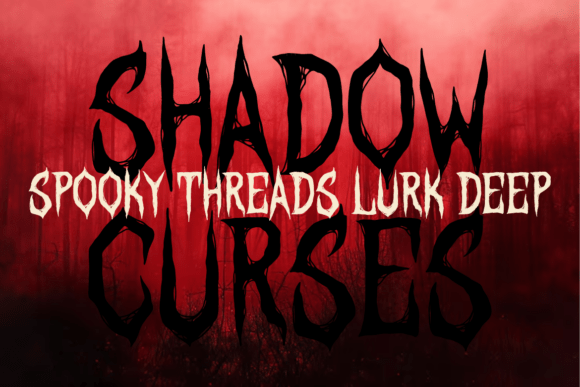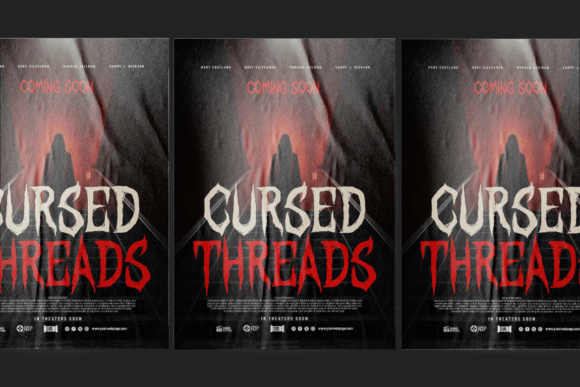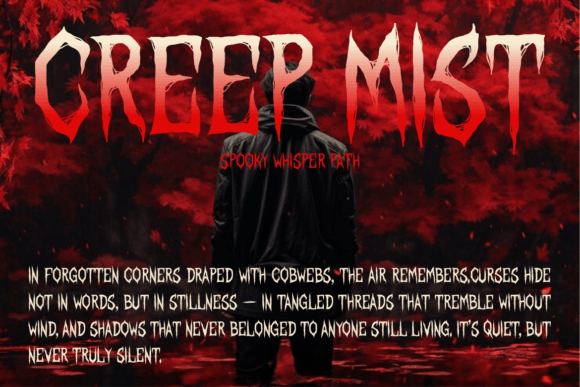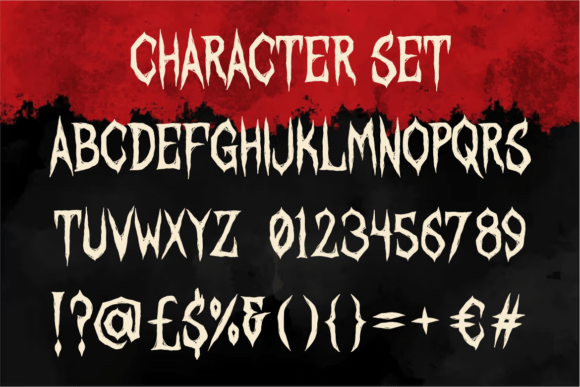
Unleash the Terror: Discover the Darkest Curse Font
Are you a designer or craft looking to add a touch of horror to your projects? Look no further than the Darkest Curse Font, a bone-chilling horror display font that captures the raw essence of fear. With its jagged edges, uneven stems, and twisted letterforms, this font is perfect for creating eerie and unsettling designs that will leave your audience shivering.
The Inspiration Behind Darkest Curse
The Darkest Curse Font is designed to evoke a sense of decay and madness, making it ideal for horror movie titles, haunted attraction posters, and Halloween-themed branding. The font’s creator aimed to craft a typeface that would combine sharp pointed ends with unsettling, organic strokes, resulting in a truly terrifying aesthetic.
Key Features of Darkest Curse
- Jagged Edges and Uneven Stems: The font’s jagged edges and uneven stems give it a distressed, worn look that adds to its eerie charm.
- Twisted Letterforms: Each glyph has a twisted, organic feel that makes it seem like the letters are writhing on the page.
- Sharp Pointed Ends: The font’s sharp pointed ends add a sense of danger and menace to any design.
- Unsettling Color Palette: The included color palette features a blood-red gradient against deep black, intensifying the eerie mood.
- Cobweb Overlays and Grunge Backdrops: The font’s design is further enhanced by cobweb overlays and grunge backdrops, highlighting its sinister aesthetic.
Using Darkest Curse in Your Designs
The Darkest Curse Font is perfect for a variety of design applications, including:
- Horror Movie Titles: Add a touch of terror to your horror movie titles with this unsettling font.
- Haunted Attraction Posters: Create eye-catching posters for haunted attractions with Darkest Curse.
- Halloween-themed Branding: Use Darkest Curse to create spooky branding for your Halloween-themed products or services.
- Book Covers: Add a touch of horror to your book covers with this eerie font.
- Eerie Signage: Create unsettling signs with Darkest Curse, perfect for haunted houses or horror-themed events.
- Digital Marketing for Horror Brands: Use Darkest Curse to create terrifying digital marketing materials for horror brands.
Typography and Cohesion
The Darkest Curse Font features uppercase characters that dominate with terror-infused boldness, while the lowercase forms follow a similar grotesque pattern, ensuring cohesion across all uses. The included punctuation and numerals maintain the same tortured texture, ideal for complete visual consistency.